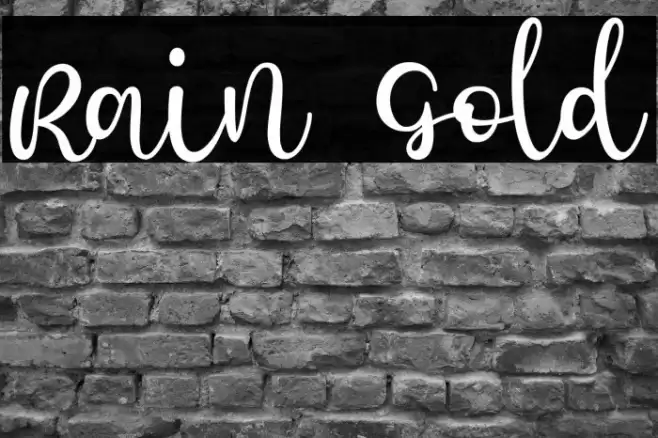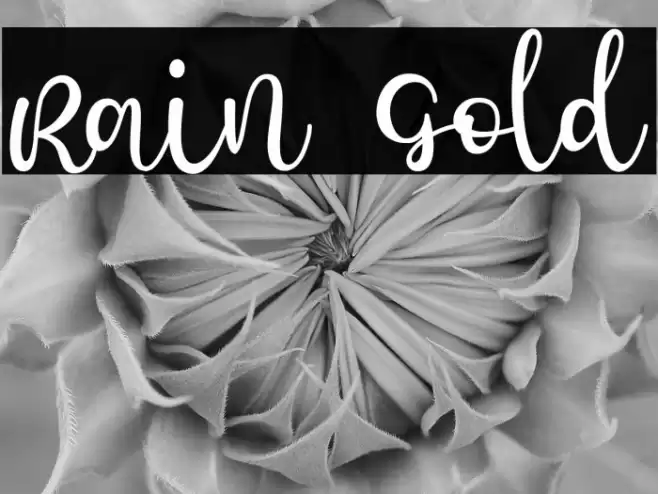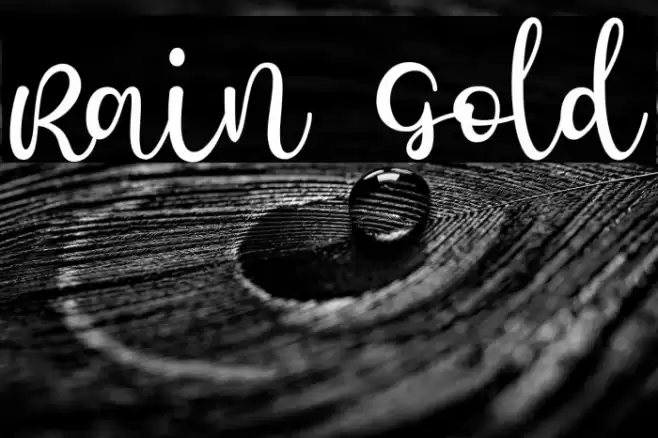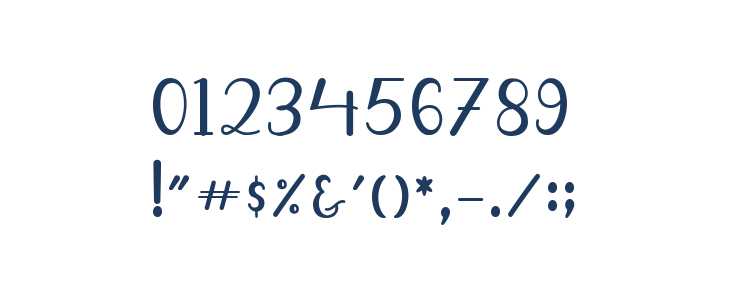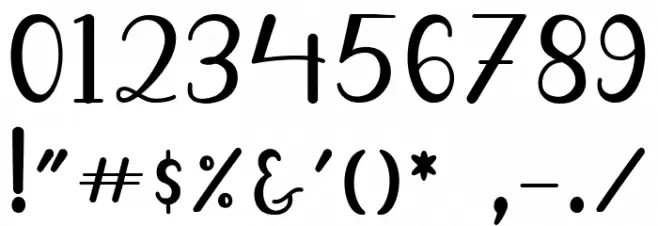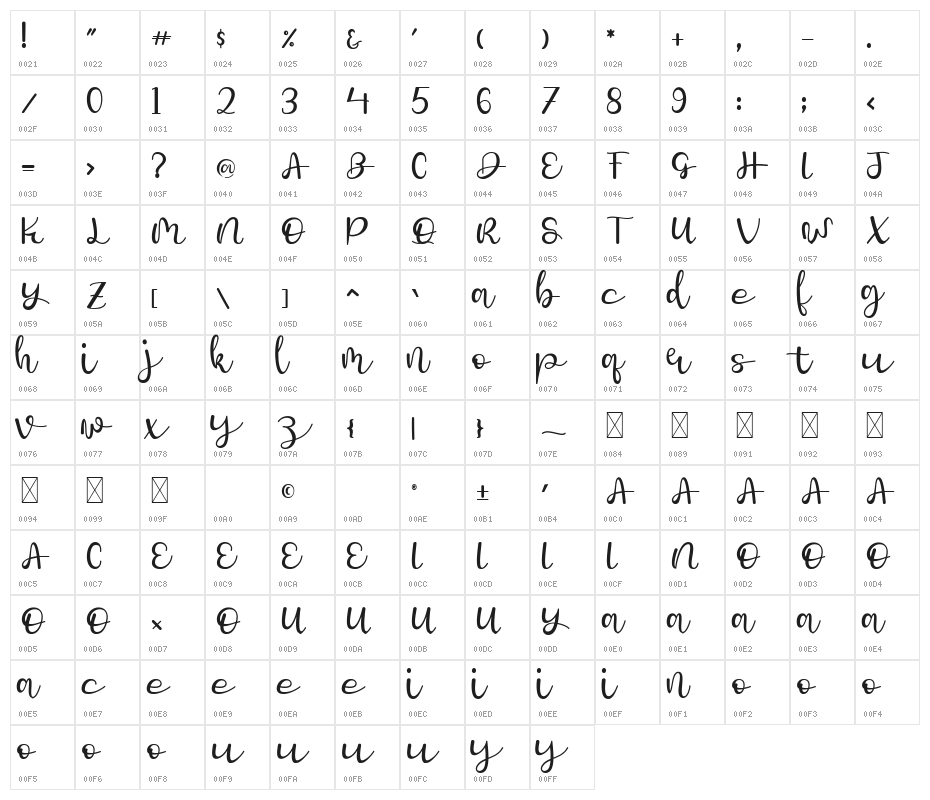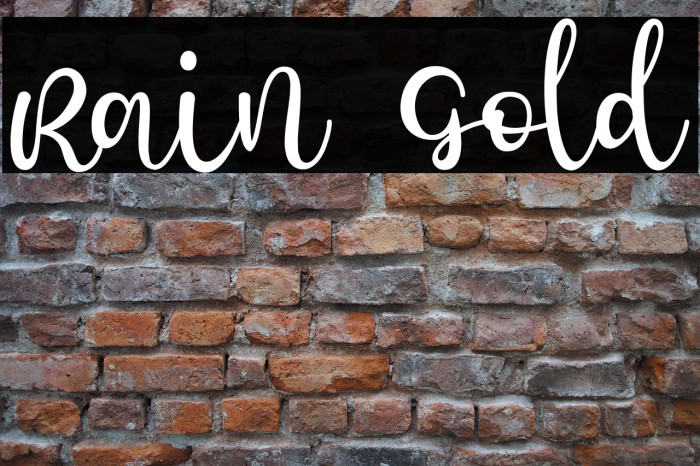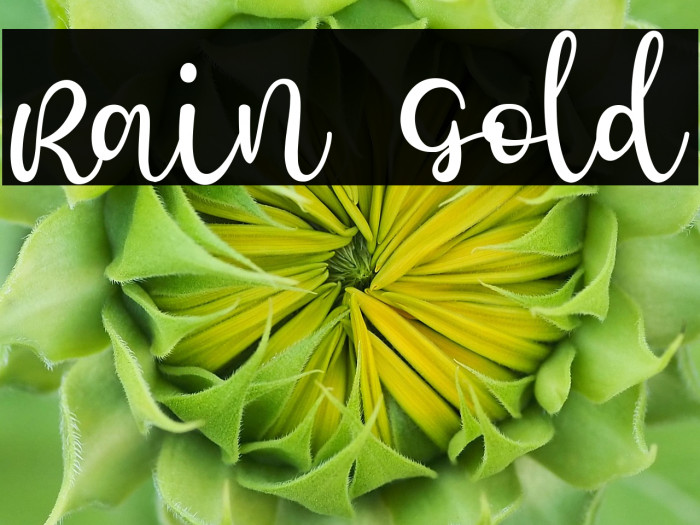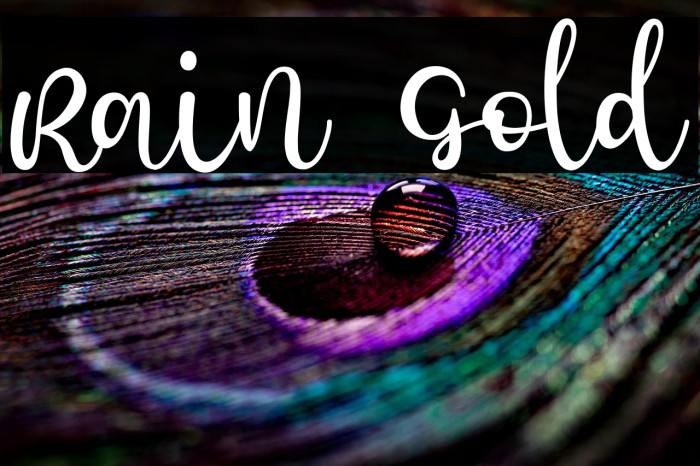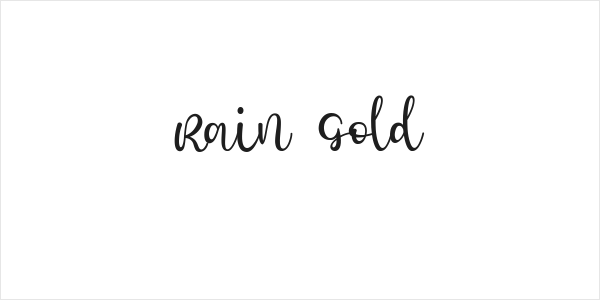
Rain Gold Font
Rain Gold Description
This font features a playful and whimsical script style, characterized by its smooth, flowing curves and loops. The uppercase letters are bold and dynamic, with a slight slant that adds a sense of movement. The lowercase letters maintain a consistent style, with rounded forms and a friendly appearance. The numerals are clear and legible, complementing the overall design with their rounded edges. Special characters are creatively integrated, maintaining the font's lively and informal aesthetic. This font is perfect for projects that require a touch of elegance and personality.
A playful and whimsical script font with smooth, flowing curves from Regular fonts.
- Font: Rain Gold